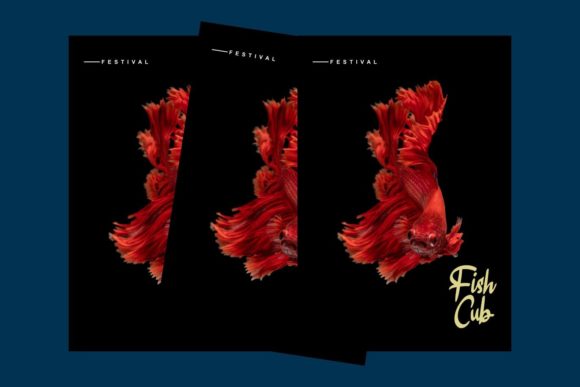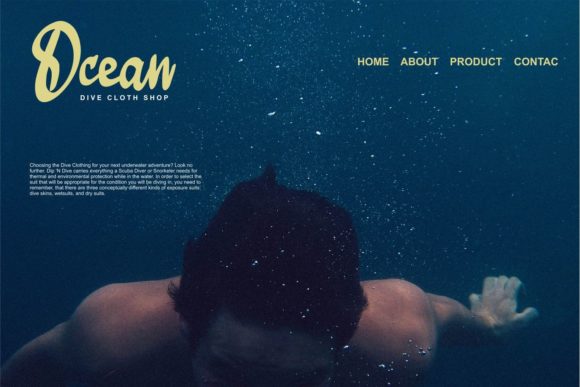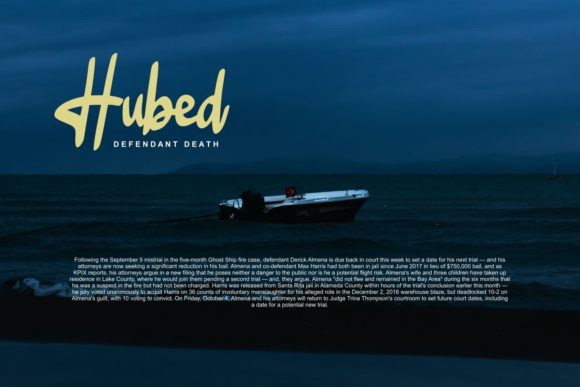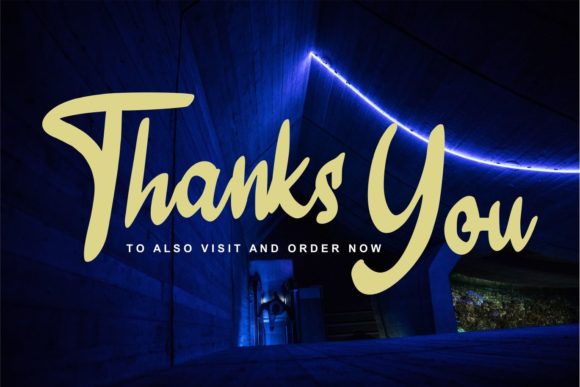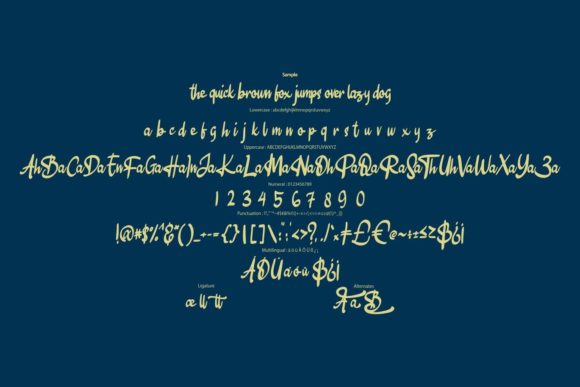
Bringing Handwritten Charm to Your Designs
Have you ever found yourself scribbling down ideas in a notebook, only to realize that the messy handwriting has become the most memorable part of the concept? That’s exactly the kind of creative spark that the Alexa Script Font is designed to capture.
This lovely and timeless handwritten font is more than just a pretty face – it’s a powerful tool for designers looking to add a personal touch to their work. Whether you’re creating eye-catching logos, branding, or quotes, the Alexa Script Font is the perfect choice to make your designs come alive.
With its unique and beautiful touch, this font is a valuable addition to any designer’s toolkit. Its versatility and charm make it an ideal choice for a wide range of projects, from elegant wedding invitations to playful social media graphics.
Alexa Script Font Key Features
- Font Size: Alexa Script Font comes in a range of sizes, from 12pt to 72pt, allowing for flexibility in design applications
- Resolution: Supports high-resolution printing and digital display, making it suitable for a variety of mediums
- Unique Characteristics: Alexa Script Font features elegant, connected script letters with subtle flourishes, giving it a distinctive and sophisticated look
- Language Support: The font supports a wide range of languages, including Latin, Cyrillic, and Greek scripts
- Font Weight: Available in multiple weights, including Light, Regular, Medium, Bold, and Heavy, to accommodate different design requirements
Alexa Script Font Review
I recently had the chance to work with the Alexa Script font, and I must say it’s a unique and charming addition to any design project. ✨ The font’s fluid, cursive lines evoke a sense of elegance and sophistication, making it perfect for wedding invitations, stationery, and other high-end designs.
One of the things I appreciate about Alexa Script is its flexibility. It comes in a range of weights, from Light to Bold, allowing you to adjust the font’s intensity to suit your design needs. ✨ Additionally, the font is highly customizable, with a range of ligatures and alternates to choose from.
- Unique, elegant design ✨
- Flexible weight options (Light to Bold)
- Highly customizable with ligatures and alternates
- Not ideal for body text, as it can be difficult to read at smaller sizes ⚠️
- May require additional design elements to balance out the font’s fluidity ⚠️
Overall, I’m impressed with the Alexa Script font’s potential to elevate designs to a new level of sophistication. While it may not be suitable for every project, it’s a valuable addition to any designer’s toolkit.
Use Alexa Script Font for:
- Event branding and signage.
- Personalized gifts and cards.
For best results, use Alexa Script Font in conjunction with other elegant fonts to create a balanced design.
Alternatives to Alexa Script Font
Pacifico is a modern script font that is perfect for designs that require elegance and sophistication. It is ideal for wedding invitations, event branding, and luxury packaging. Pacifico is more versatile than Alexa Script Font, as it can be used for both digital and print media.
Comparison: Pacifico has a more refined and polished look compared to Alexa Script Font, making it suitable for high-end designs.
Great Vibes is a fun and playful script font that is perfect for designs that require a casual and laid-back feel. It is ideal for social media graphics, blog posts, and advertising campaigns. Great Vibes is more energetic and dynamic than Alexa Script Font, making it suitable for young and creative audiences.
Comparison: Great Vibes has a more relaxed and carefree look compared to Alexa Script Font, making it suitable for designs that require a fun and playful tone.
Carolyna Pro is a elegant and sophisticated script font that is perfect for designs that require luxury and refinement. It is ideal for high-end branding, advertising, and packaging designs. Carolyna Pro is more intricate and detailed than Alexa Script Font, making it suitable for designs that require a high level of sophistication.
Q: What is the character set and language support for the Alexa Script Font?
The Alexa Script Font includes a comprehensive character set that supports over 200 languages, including Latin, Cyrillic, Greek, and many others. The font also includes a range of ligatures and swashes to help designers create beautiful, professional-looking text.